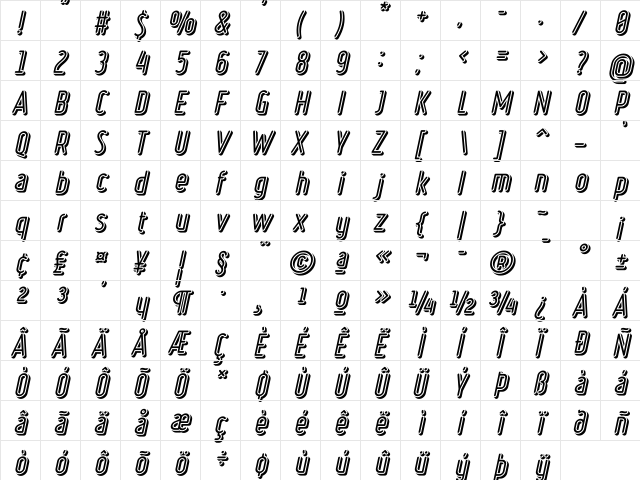
Ruler Volume Negative Bold Italic Font Preview
| Foundry | Levi Szekeres |
| Designer | Levi Szekeres |
Design Context for Ruler Volume Negative Typeface
Ruler Volume Negative takes a measured approach to typography — its balanced proportions and neutral character make it a reliable workhorse for both digital and print work. Its italic angle brings a sense of urgency and motion to the letterforms. The heavy weight commands attention and anchors typographic hierarchies.